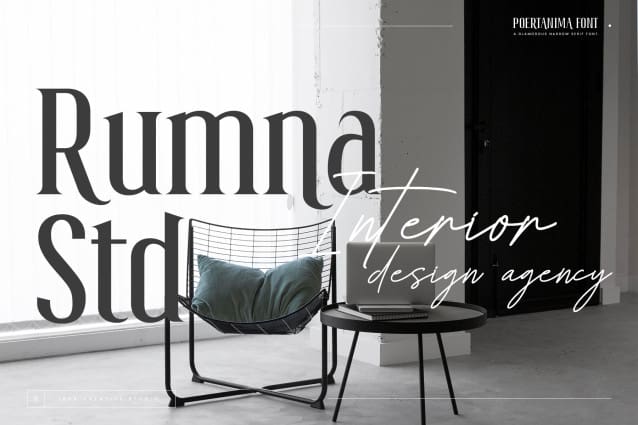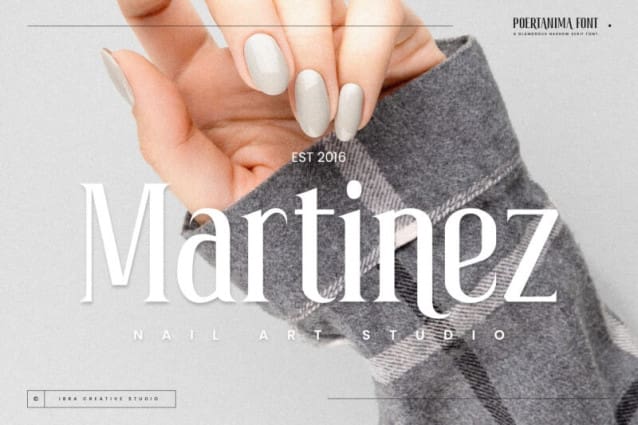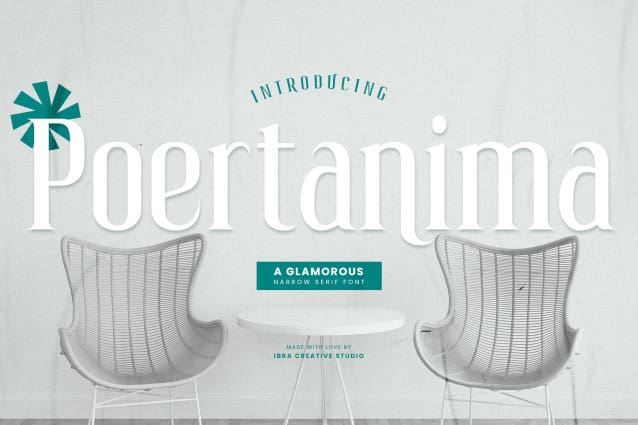
Poertanima Font
Poertanima Font, a glamorous narrow serif font, exudes sophistication and timeless elegance. Its slender and refined letterforms boast a delicate balance between modern aesthetics and classical charm, making it a perfect choice for projects that demand a touch of luxury. With its gracefully tapered serifs and intricate detailing, Poertanima captures attention with an air of exclusivity, making it ideal for high-end branding, editorial design, or any context where a touch of glamour is desired. This typeface effortlessly blends versatility and visual appeal, conveying a sense of refinement that elevates any design it graces.